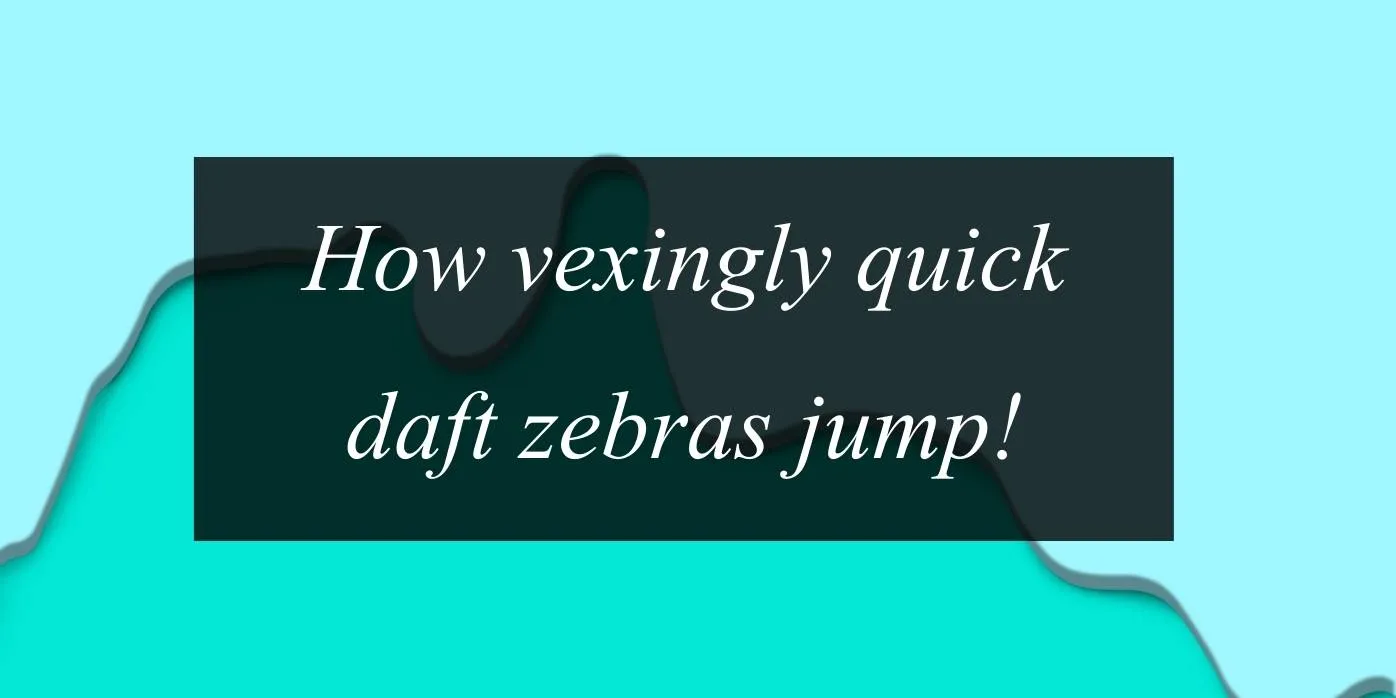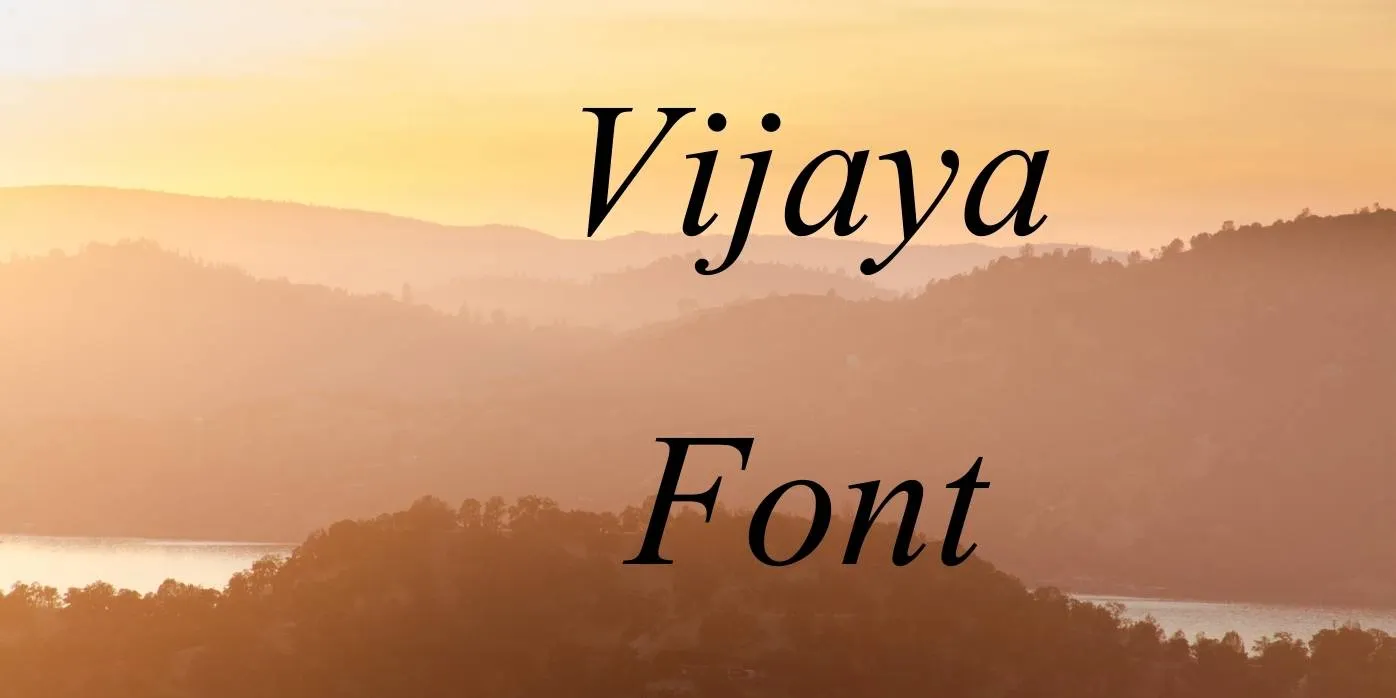
Vijaya Font
Today, we introduce a classic typeface that is famous for metal-type printing named Vijaya Font. This beautiful serif font was designed by Tamil typeface designer R. K. Laxman Rao in 1963.
This typeface was developed by AZ fonts Foundry. It remains a popular choice for both digital and print projects. It is an elegant, traditional Tamil serif font that evokes the style of early 20th-century metal-type printing. The font’s name pays homage to the first Tamil daily newspaper, Vijaya, which was published in Chennai in 1911.
It is best for use in Windows 10. It has Bold and regular styles. Its generator tool is best for many interesting designs. Times New Roman Font Is one of the most alternatives to this typeface.
It has a classic and timeless appeal that makes it a great choice for various designs. This typeface has a large x-height, making it highly legible. This cozy typeface also features distinctively tall ascenders and descenders, giving it a stately appearance. It is perfect for use in headlines, as well as in body text.